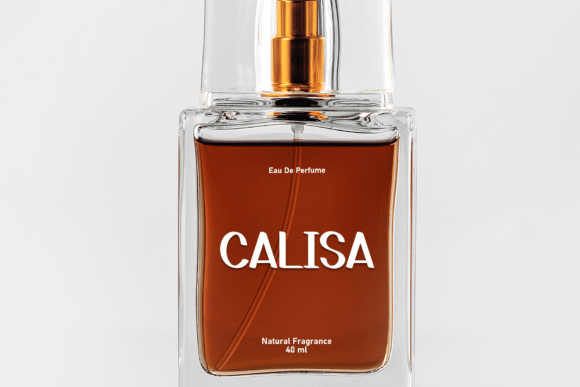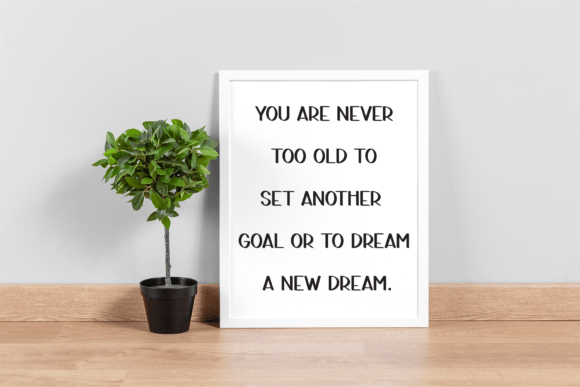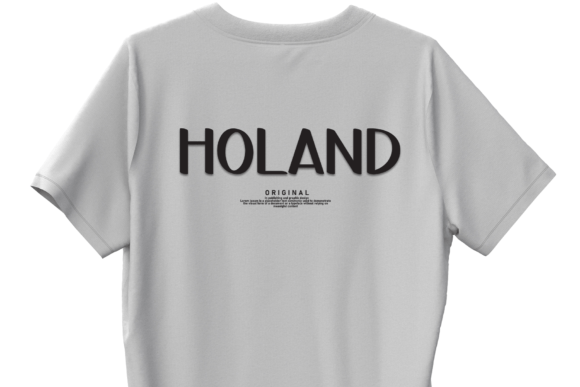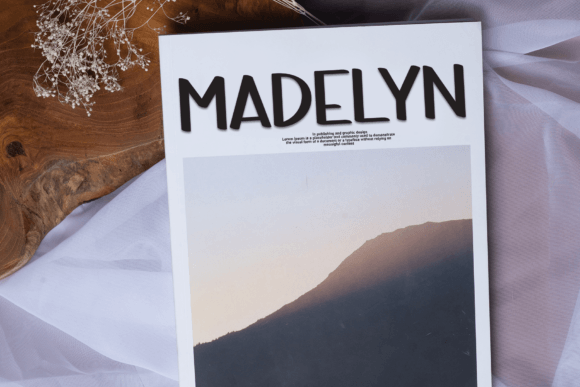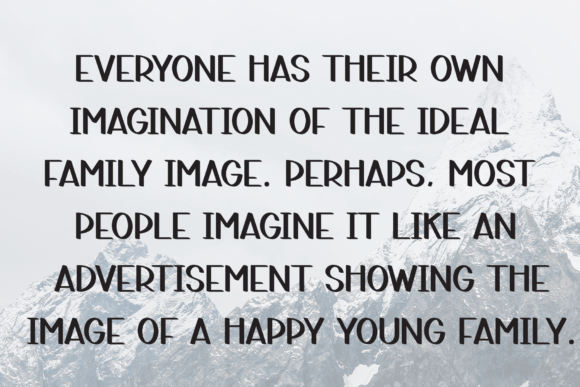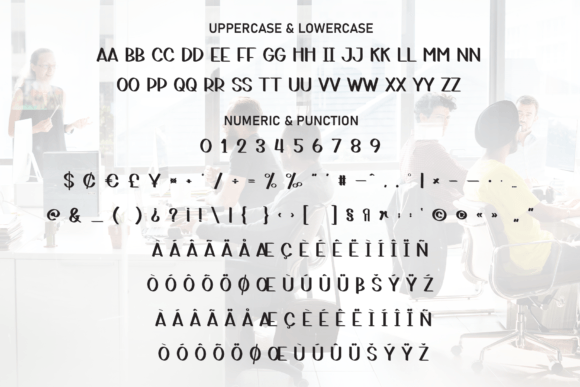
Introducing Company Font: The Ultimate Choice for Modern Headlines
In the world of typography, a good font can make all the difference in the effectiveness of your design. When it comes to creating eye-catching headlines or titles, you need a font that is not only easy to read but also visually appealing. This is where Company Font comes in – a clean and straightforward display font designed to make your text stand out with a modern and bold look.
What is Company Font?
Company Font is a display font that has been crafted with simplicity and elegance in mind. Its clean lines and straightforward design make it perfect for use in headlines, titles, and any other application where you want to make a bold statement. The font’s modern aesthetic ensures that your text looks fresh and contemporary, making it ideal for a wide range of design projects.
Key Features of Company Font
• Easy to Read: One of the standout features of Company Font is its exceptional readability. Even at smaller sizes, the font remains clear and easy to decipher, making it perfect for use in a variety of contexts.
• Modern and Bold Look: Company Font boasts a modern aesthetic that is sure to turn heads. Its bold appearance ensures that your text commands attention, making it ideal for headlines and titles.
• Clean and Straightforward Design: The font’s clean and straightforward design makes it incredibly versatile. It can be used in everything from corporate branding to personal projects, and will fit right in with a wide range of design styles.
• High Versatility: Whether you’re working on a digital project or a print-based design, Company Font is up to the task. Its flexibility makes it a valuable addition to any designer’s toolkit.
Who Can Benefit from Using Company Font?
Company Font is an excellent choice for a wide range of designers and crafters, including:
• Graphic Designers: If you’re working on branding projects, advertisements, or any other type of graphic design, Company Font can help you create eye-catching headlines and titles.
• Web Designers: For web designers, Company Font is a great option for creating bold and modern headings that will make your website stand out.
• Digital Artists: Digital artists can use Company Font to add a professional touch to their artwork, or to create striking text-based designs.
• Crafters: Whether you’re creating handmade cards, DIY crafts, or any other type of project that involves text, Company Font can help you add a modern and professional touch.
How to Use Company Font Effectively
To get the most out of Company Font, here are a few tips:
• Use it for Headlines and Titles: Company Font is designed for headlines and titles, so use it to create bold and eye-catching text that commands attention.
• Experiment with Sizes and Colors: Don’t be afraid to experiment with different sizes and colors to find the perfect combination for your design.
• Pair it with Other Fonts: Company Font works well with a wide range of other fonts, so feel free to experiment with different pairings to find the one that works best for your project.
In conclusion, Company Font is a versatile and effective display font that is perfect for designers and crafters looking to create modern and bold headlines or titles. Its clean and straightforward design, combined with its exceptional readability, make it an excellent choice for a wide range of design projects. Whether you’re a graphic designer, web designer, digital artist, or crafter, Company Font is sure to become a valuable addition to your toolkit.